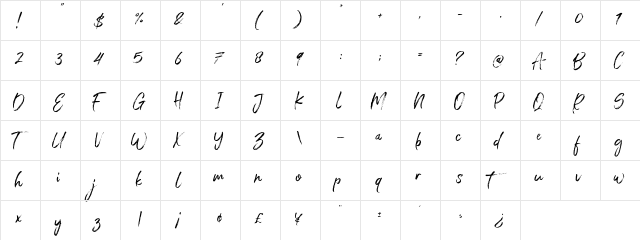
Arthure Regular
| Foundry | Khurasan |
| Designer | Khurasan |
Design Context for Arthure Typeface
Arthure takes a measured approach to typography — its balanced proportions and neutral character make it a reliable workhorse for both digital and print work.